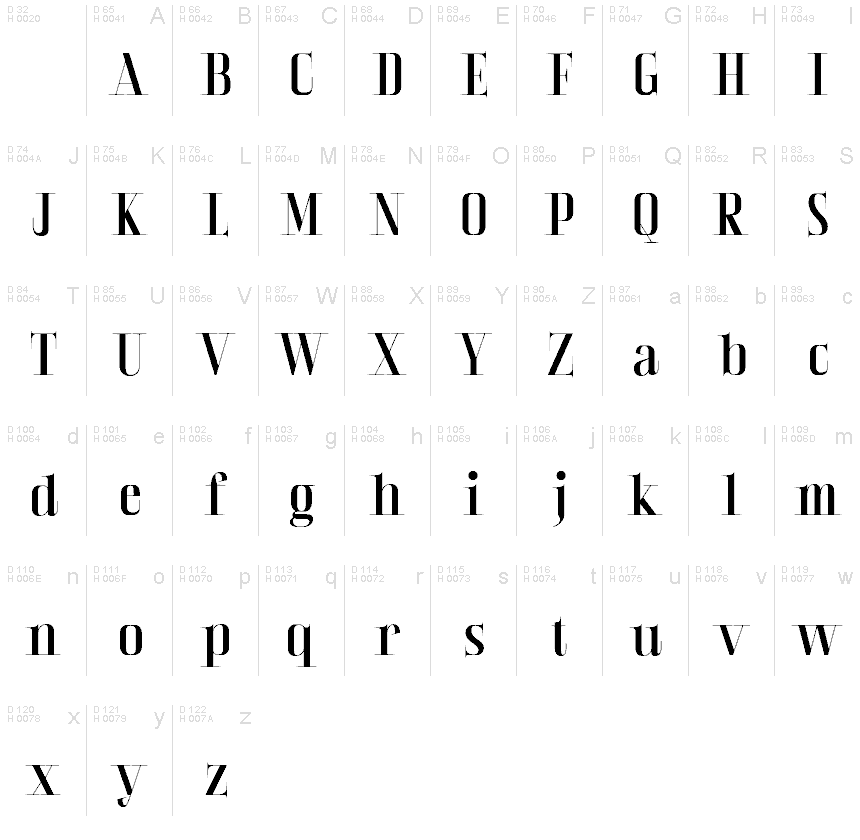
CS Kolder Regular Demo
CS Kolder font is a refined serif design with condensed width, crafted by Craft Supply Co. Featuring an elegant and modern style, the font gives a sketch-like feel that combines unique elements and an artistic appearance. This quintessential tool offers each uppercase character as its own striking character with curly end strokes.
A free serif font such as this can easily set your project apart from others no matter the occasion: posters, flyers, book titles, illustrations, typography artwork and any other print project you have in mind. Go ahead and give it a try with web projects such as online ads or videos.